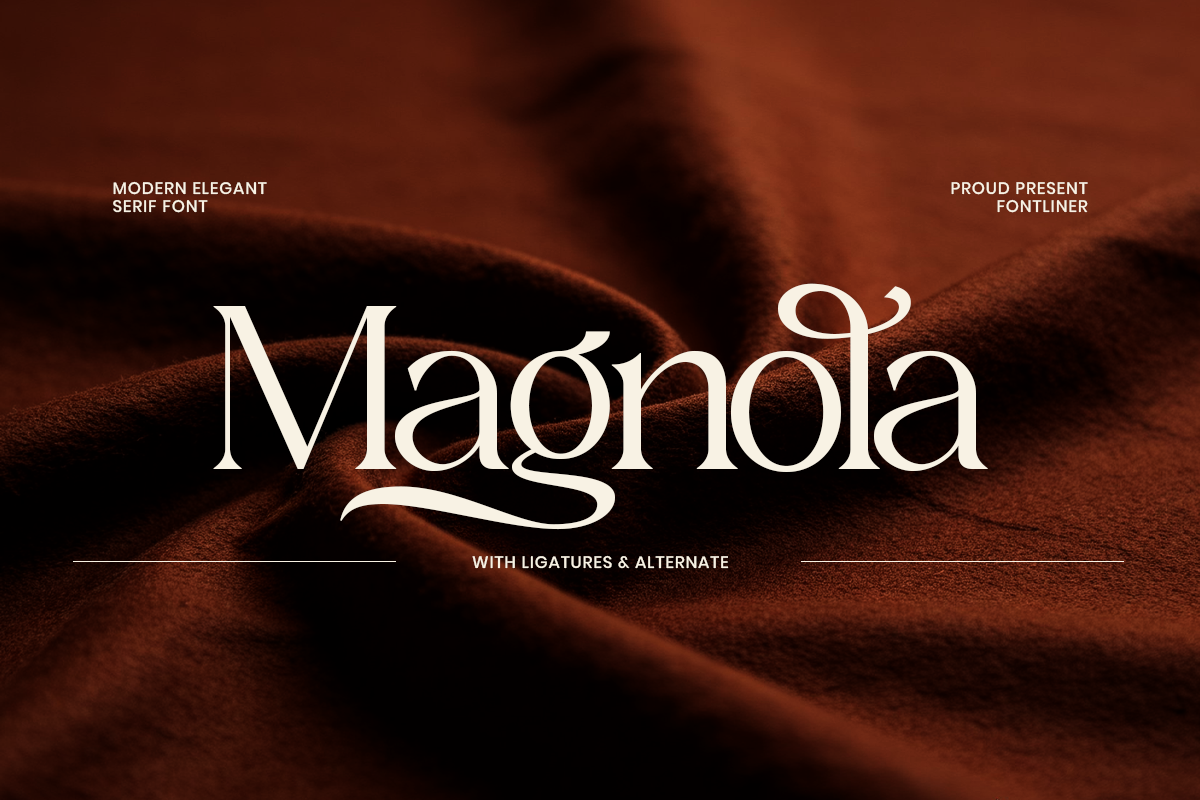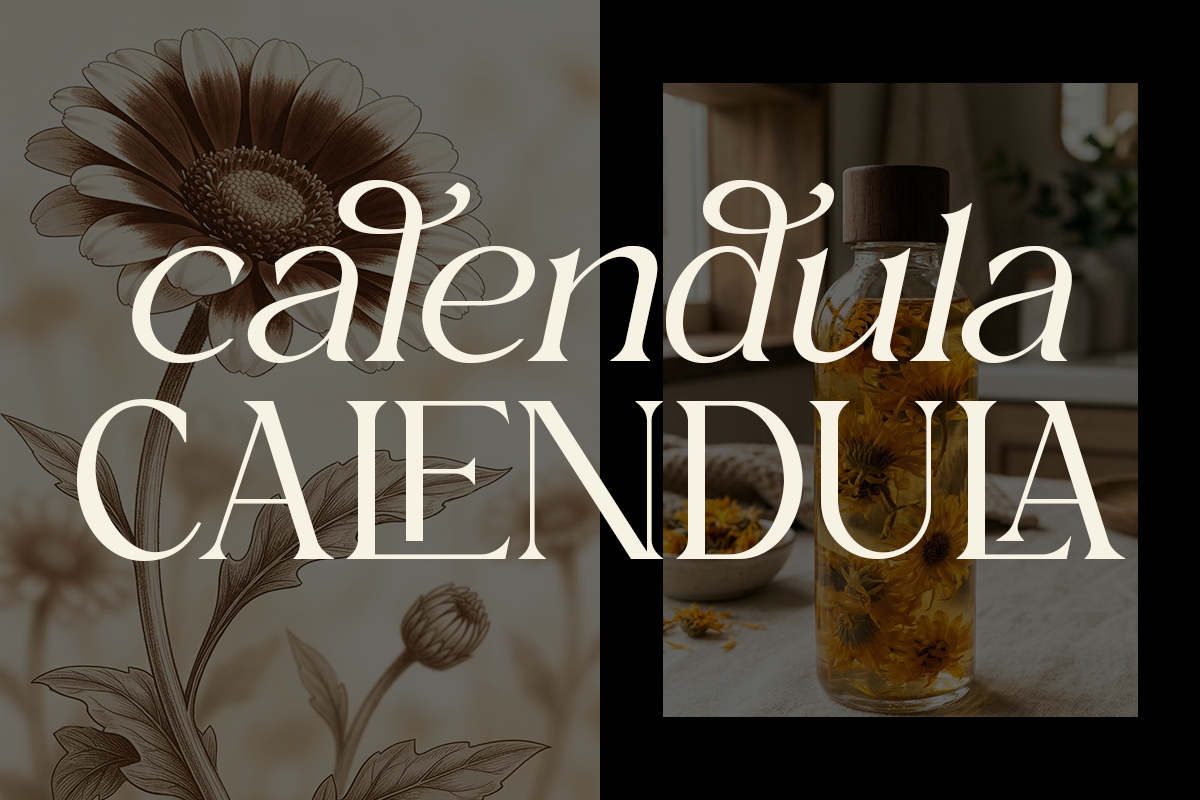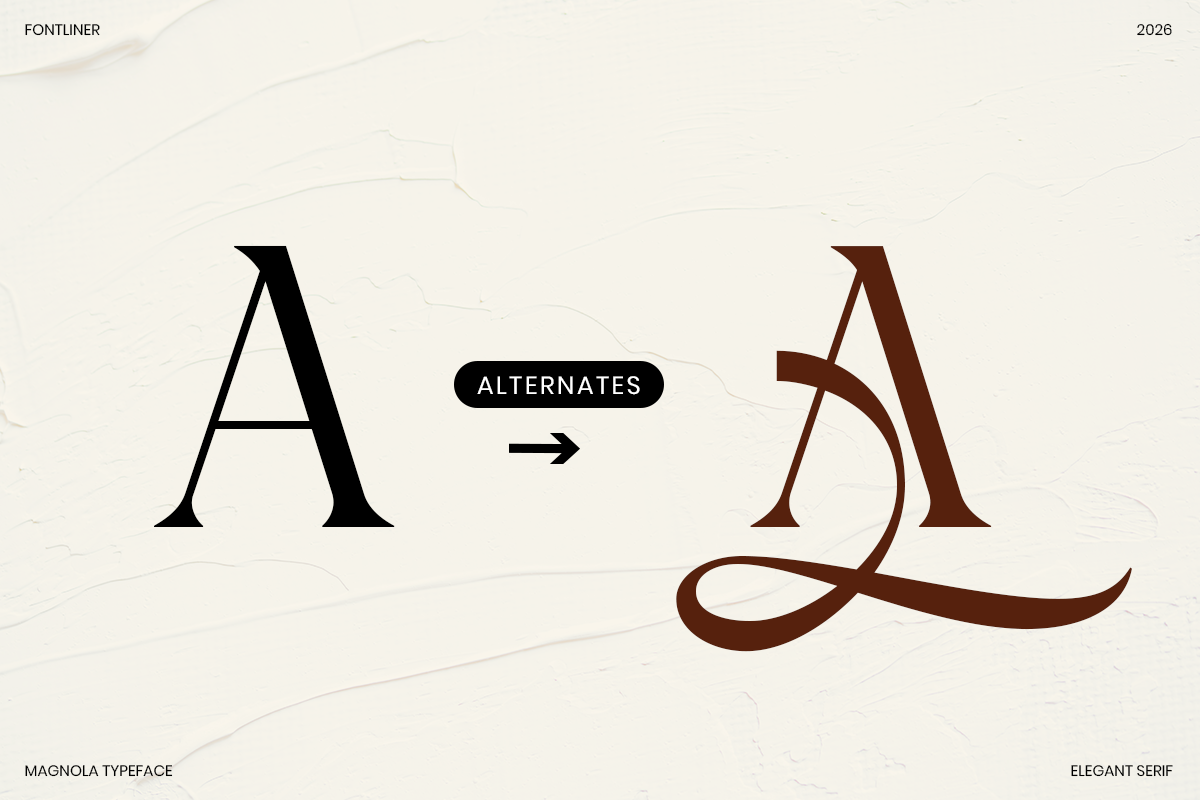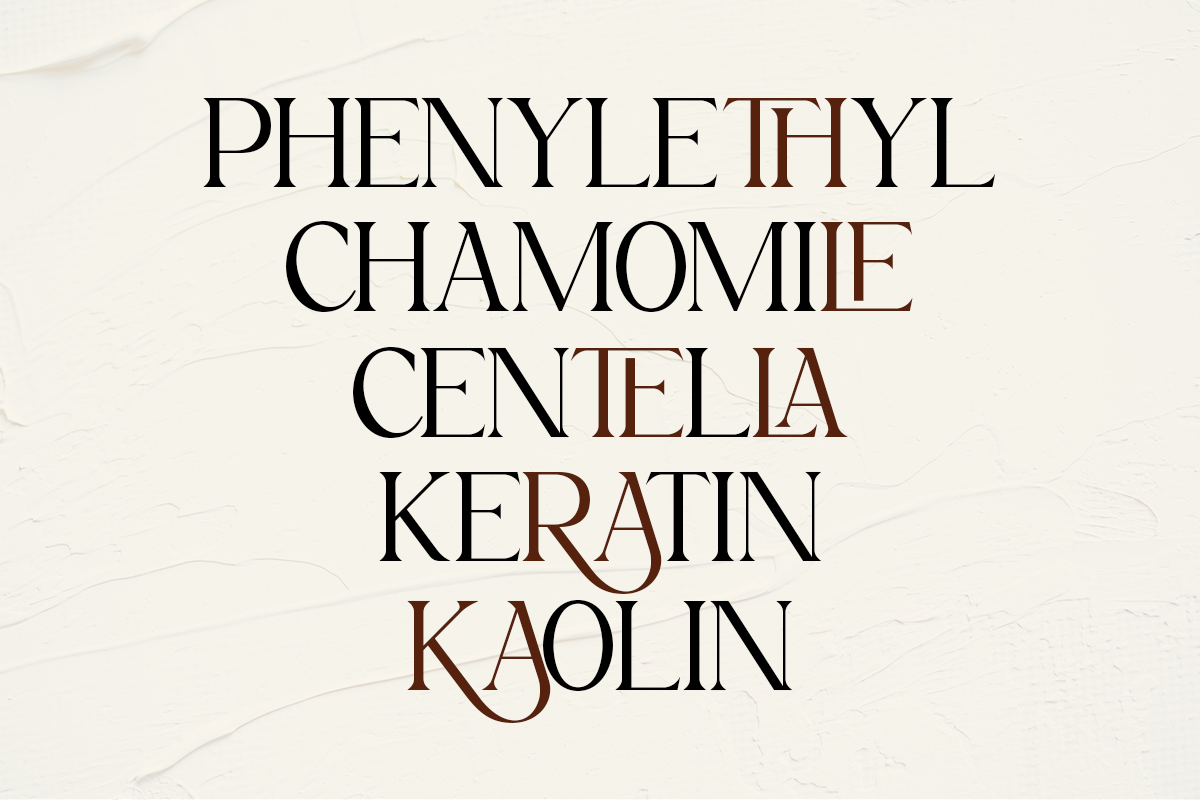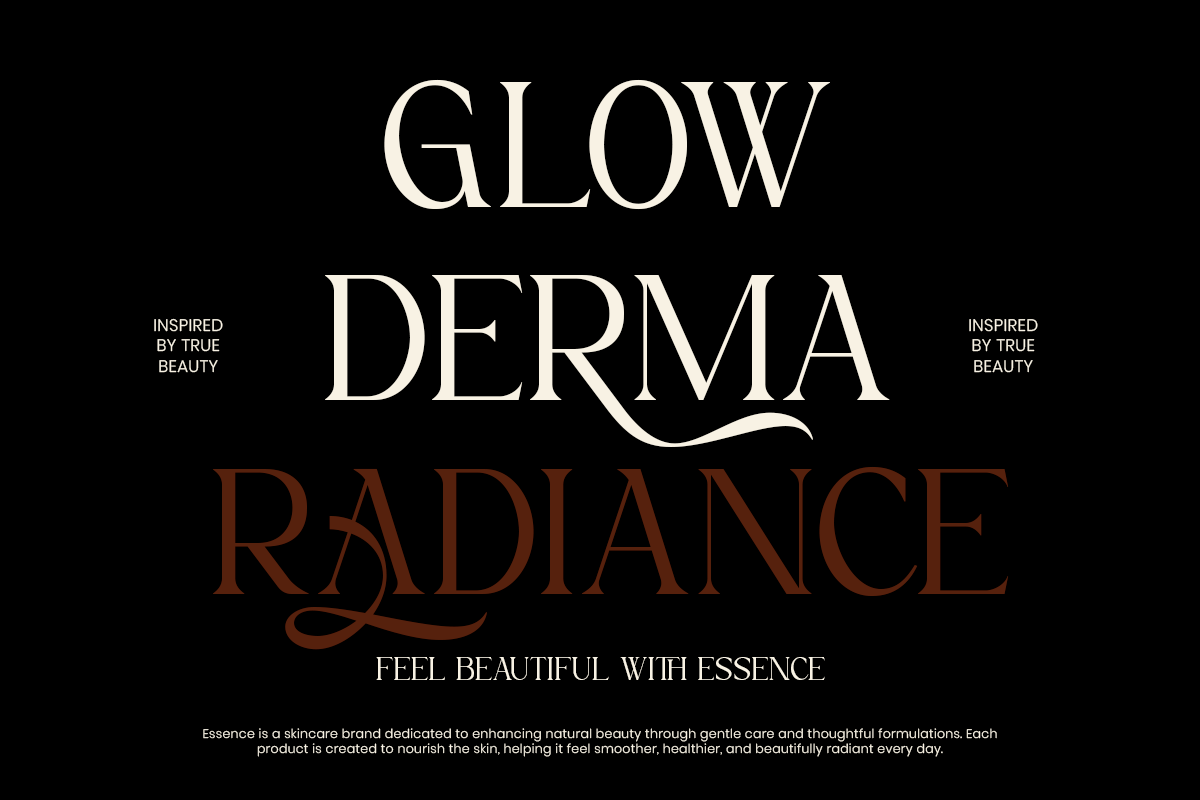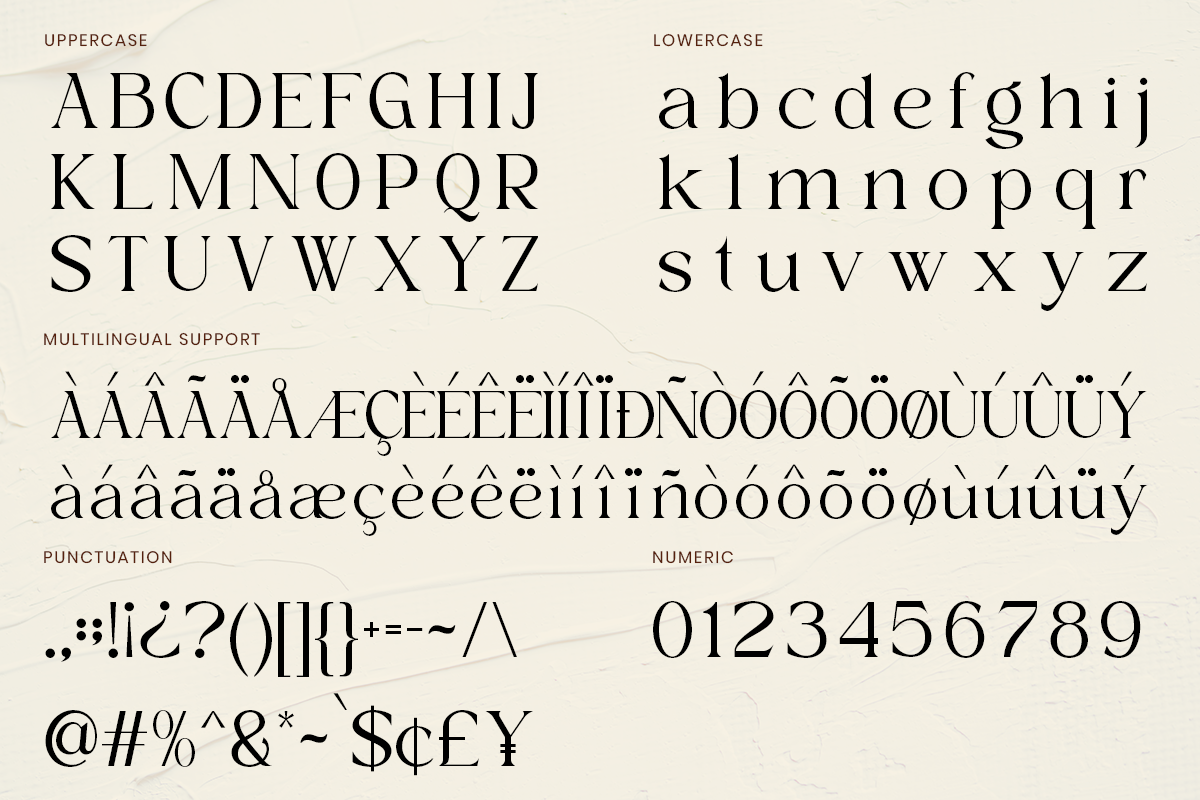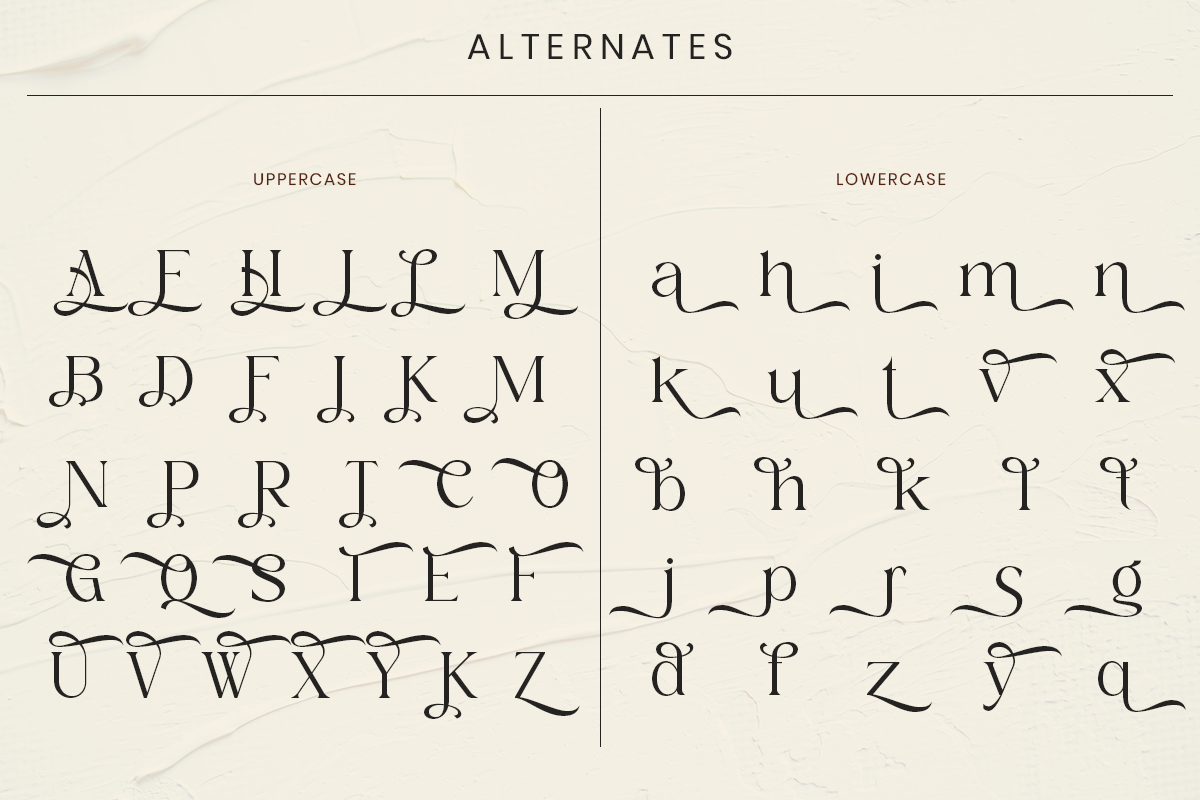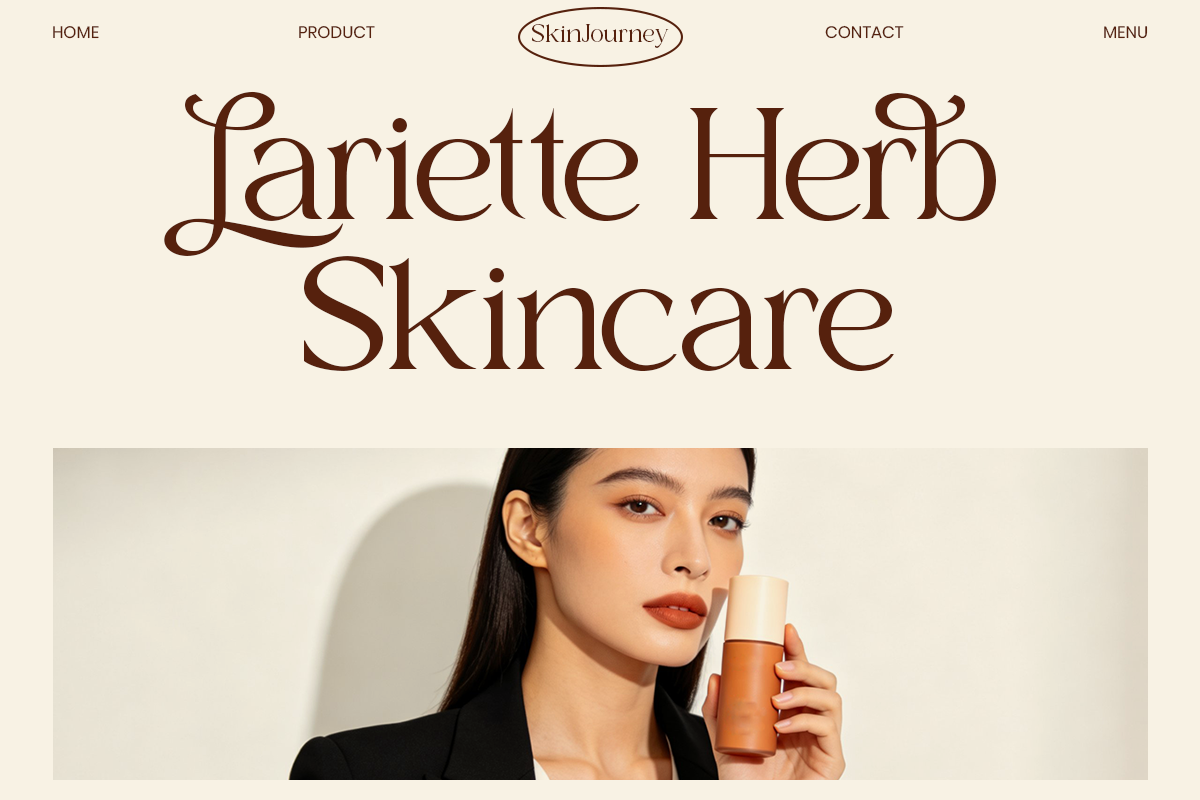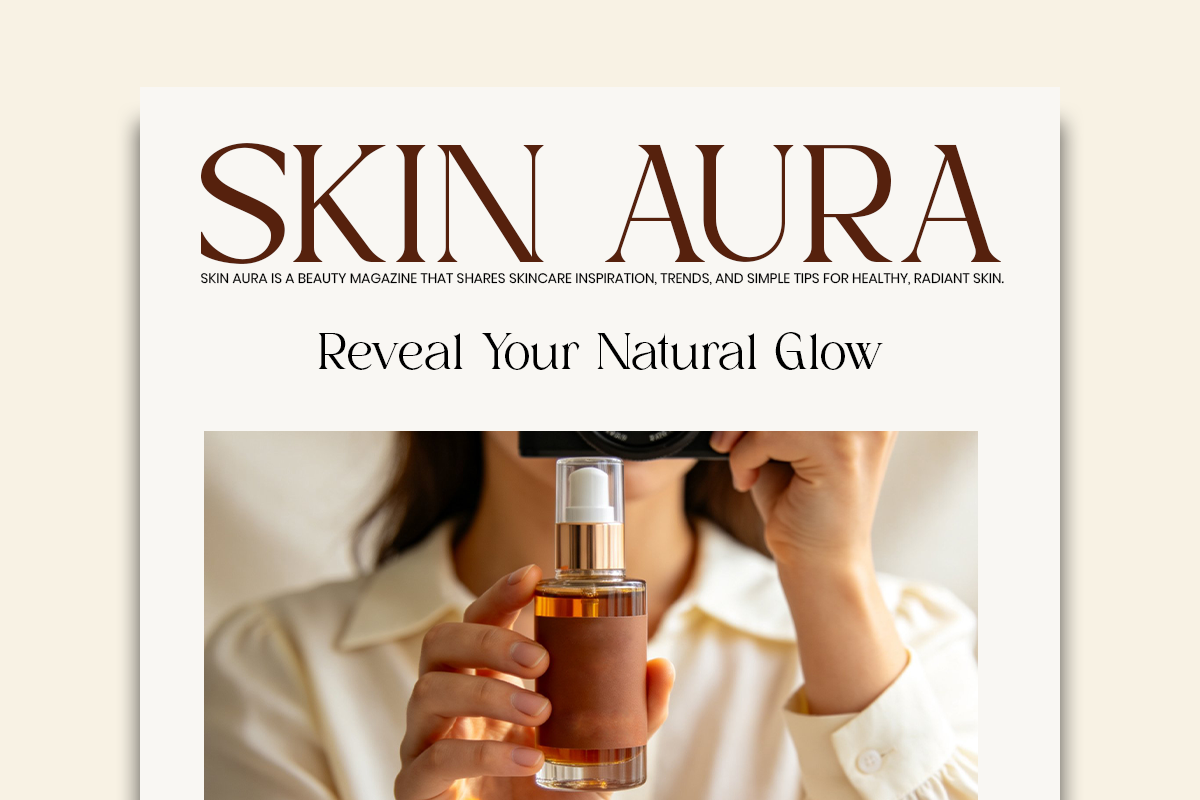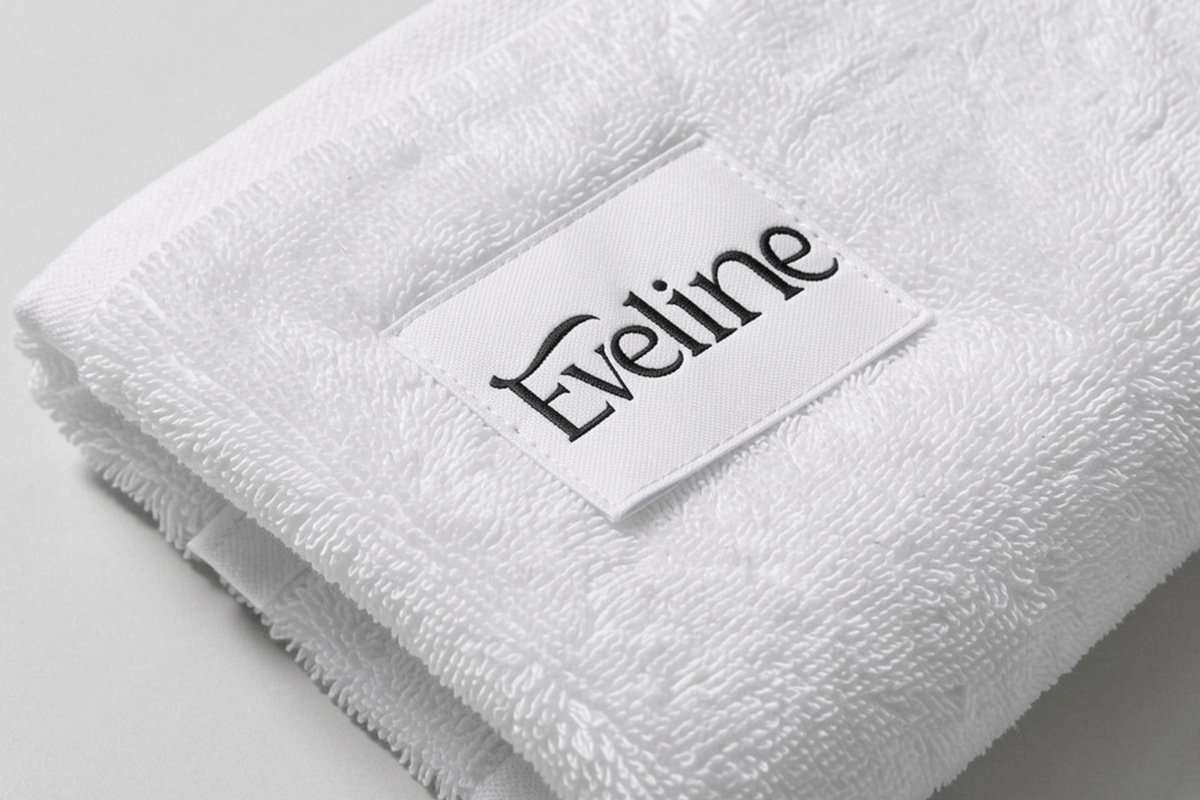
Magnola - Elegant Modern Serif
Magnola is a modern elegant serif typeface that blends classic sophistication with artistic flair. Inspired by the graceful beauty of natural forms, this font features refined serifs, smooth curves, and distinctive ligatures that add a unique personality to every letter. Its delicate yet confident appearance makes it perfect for creating timeless and luxurious visual compositions.
Designed with versatility in mind, Magnolia works beautifully across a wide range of design needs, from editorial layouts and fashion branding to wedding invitations and high-end packaging. The addition of stylish alternates and ligatures allows designers to craft more expressive and custom typography, elevating each project with a touch of elegance and creativity.
Whether you're building a premium brand or designing a romantic visual identity, Magnolia delivers a harmonious balance between modern style and classic beauty, making it a standout choice for sophisticated design work.
- Stylistic alternates
- Uppercase, Lowercase & Ligatures
- Symbol, Number and Multilingual Support